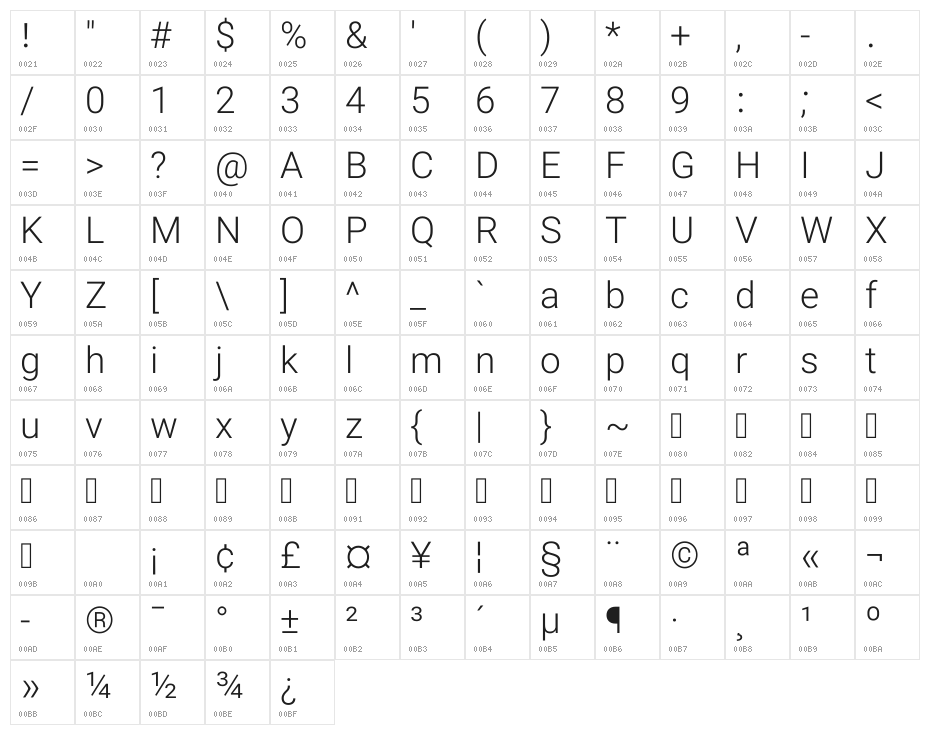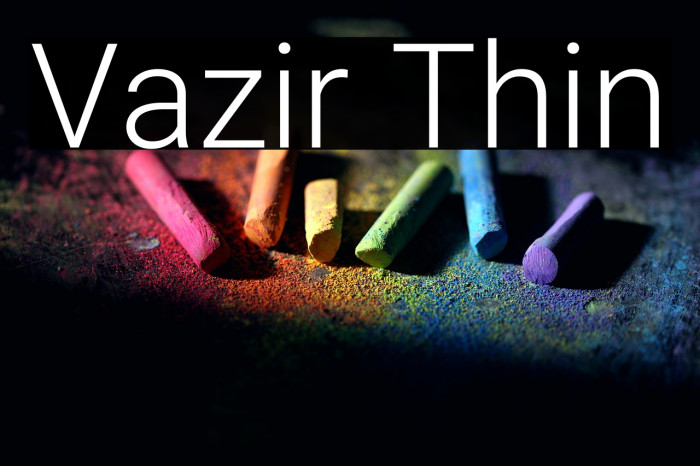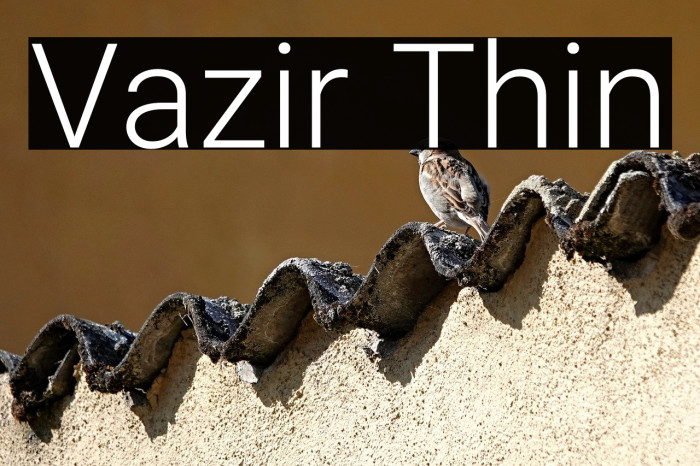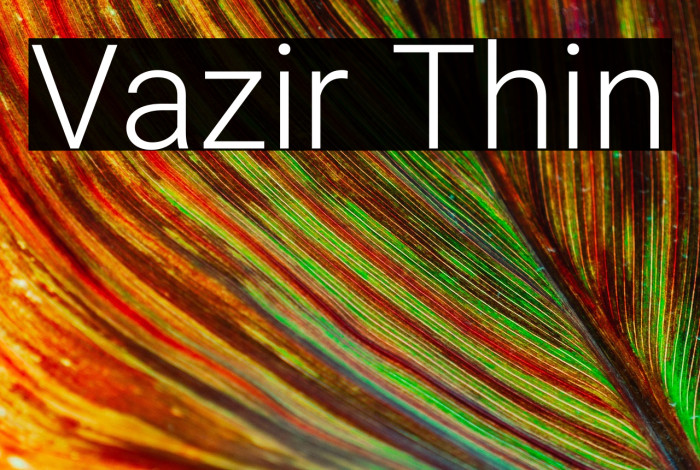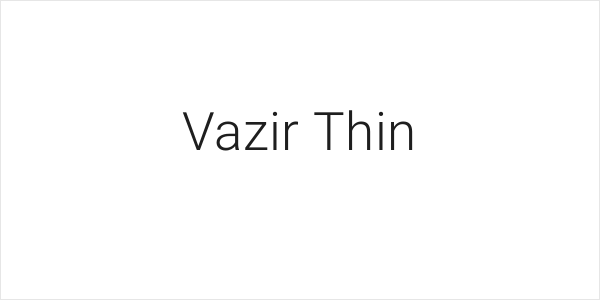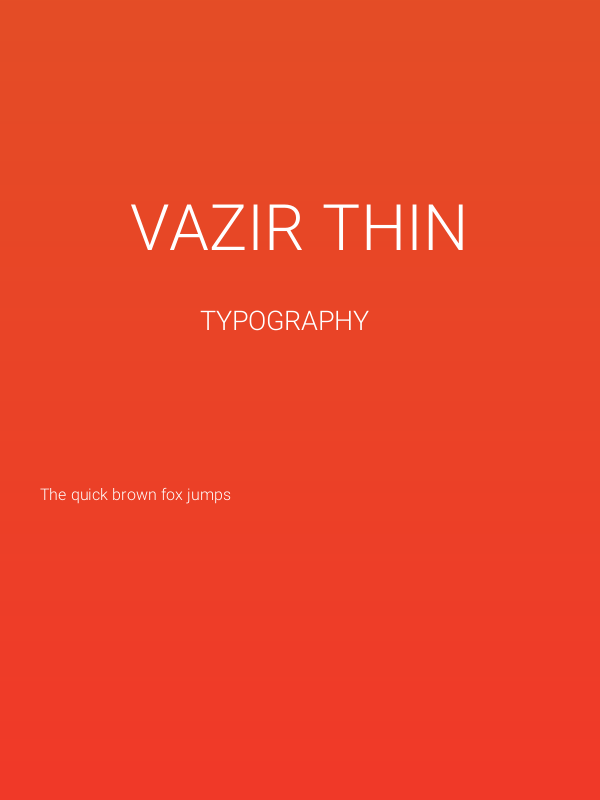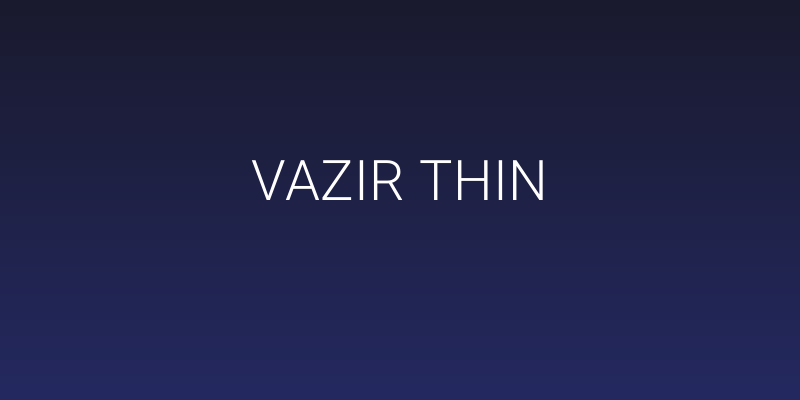
Vazir Thin Font
Vazir Thin Description
This font features a clean and modern sans-serif design with a thin weight, making it ideal for minimalist and contemporary projects. The characters are evenly spaced, providing a balanced and airy appearance. The uppercase and lowercase letters maintain a consistent style, with smooth curves and straight lines that enhance readability. The numerals are clear and distinct, while the special characters are well-integrated into the overall design. This font's simplicity and elegance make it versatile for various applications.